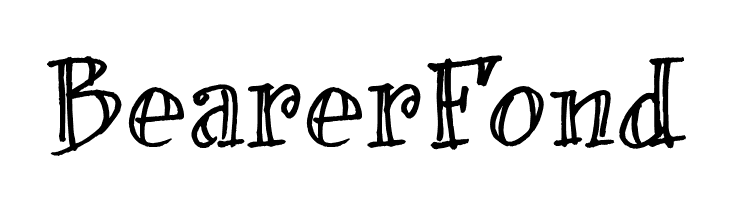
A playful, rounded font with smooth curves and a friendly appearance.
A bold, playful serif font with a hand-drawn feel.
A playful, decorative font with heart motifs and bold strokes.
A decorative font with bold, dotted uppercase and elegant cursive lowercase letters.
A bold, brush-style font with dynamic and expressive strokes.
A bold, collegiate-style font with outlined, block-like characters.
A bold, modern sans-serif font with clean lines and strong visual impact.
A modern, bold, and italic sans-serif font with consistent stroke thickness.
A bold, geometric sans-serif typeface with clean lines and modern appeal.